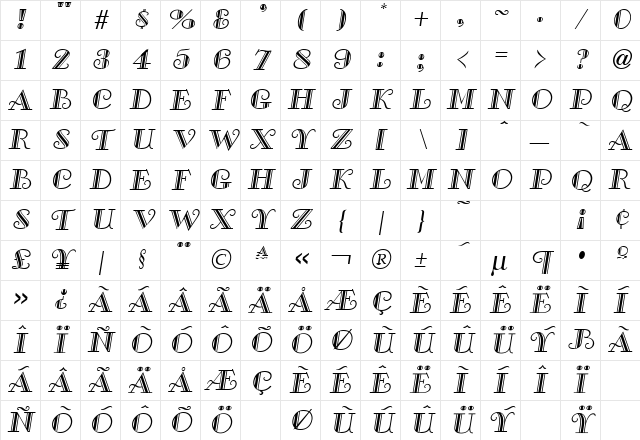
SaltbushCaps is a composed and adaptable typeface that performs quietly and consistently across a wide range of design contexts. The slanted form adds forward momentum and visual energy.